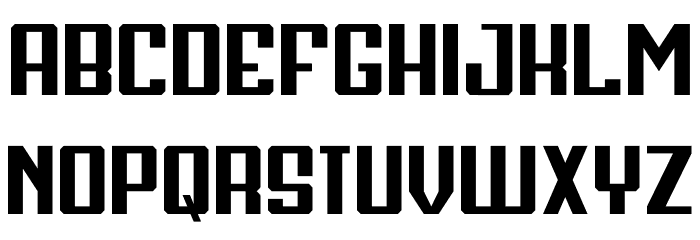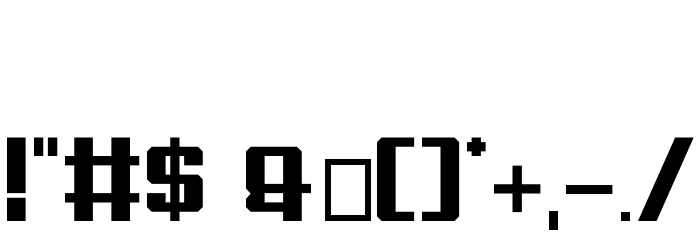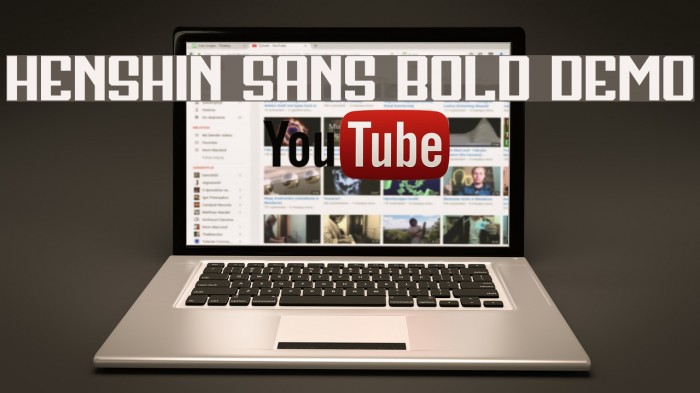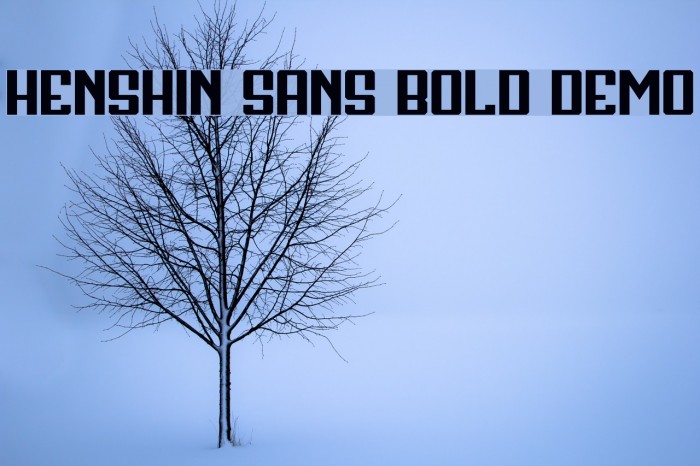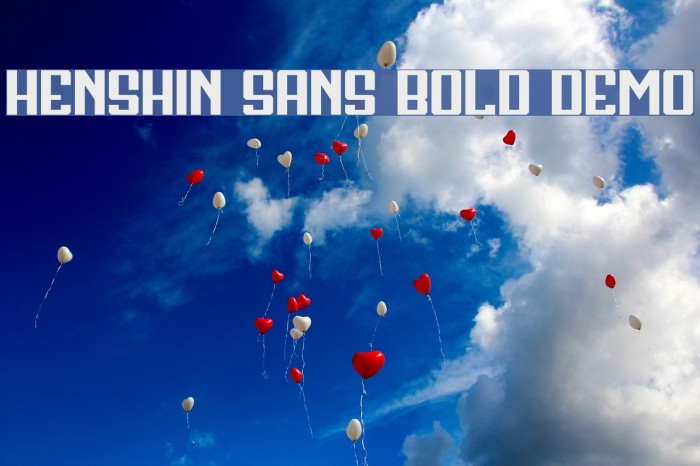
Henshin Sans Bold Demo Font
This font features a bold and geometric design with strong, angular lines and a modern aesthetic. The characters are uniformly wide, giving a monospaced appearance, yet they maintain a distinct style that is both futuristic and industrial. The uppercase letters are particularly striking, with sharp edges and a block-like structure that commands attention. The lowercase letters mirror this boldness, ensuring consistency across the typeface. The numerals and special characters are equally robust, making them suitable for impactful displays. Overall, the font exudes a sense of strength and modernity, making it ideal for projects that require a bold statement.
- Proposed Projects: Ideal for branding, posters, headlines, and any design requiring a strong, modern look.